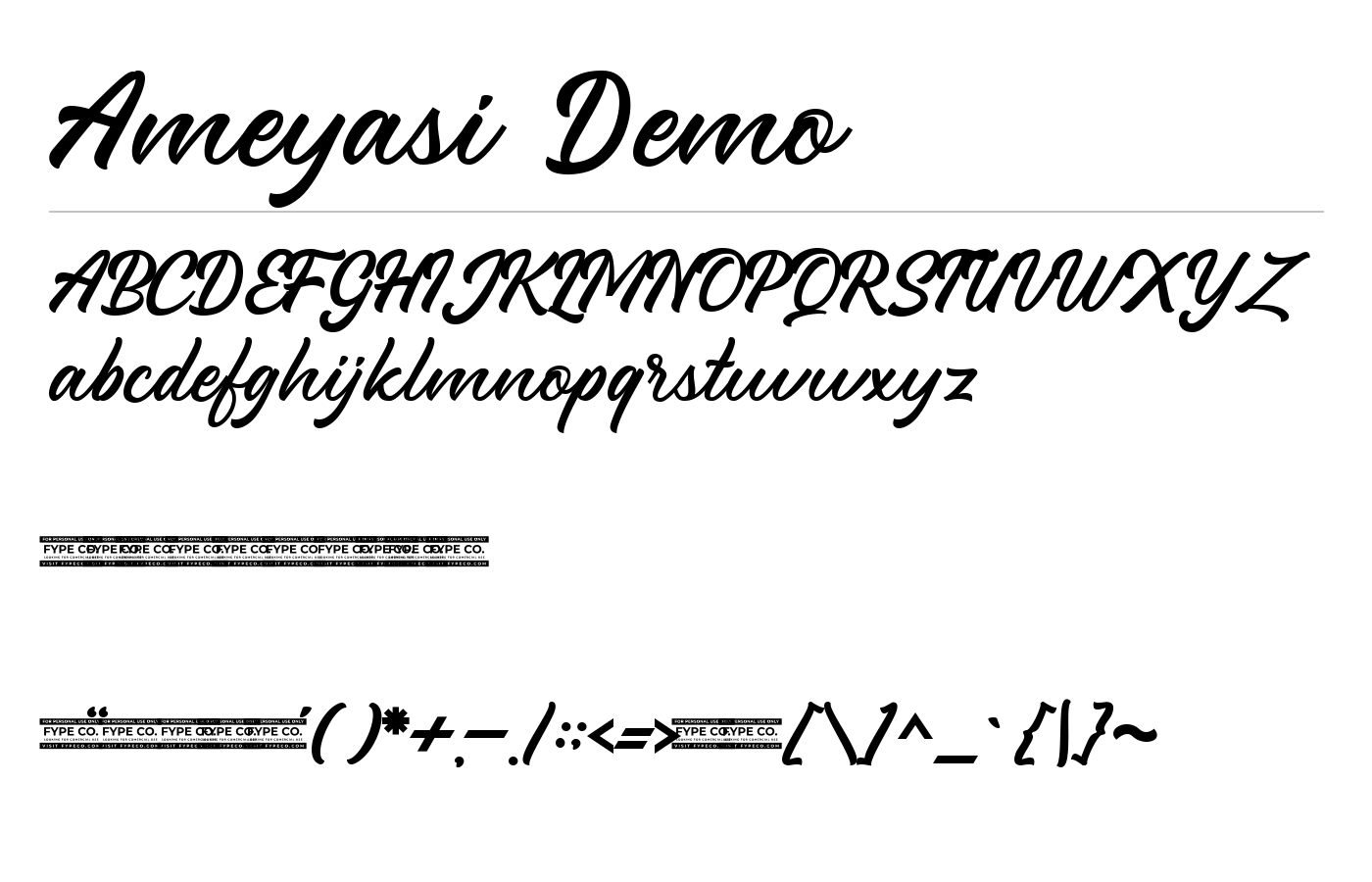
Ameyasi Demo is a smooth, flowing script font with a medium weight and elegant, connected letterforms that create a natural handwritten feel. Its slightly slanted strokes and fluid curves make it ideal for adding a personal, stylish touch to branding, invitations, and headlines where warmth and sophistication are desired. This font works well in creative and feminine designs, offering readability while maintaining a charming, artistic personality.
Ameyasi Demo Font
About Ameyasi Demo Font
| Font family | Ameyasi Demo Font |